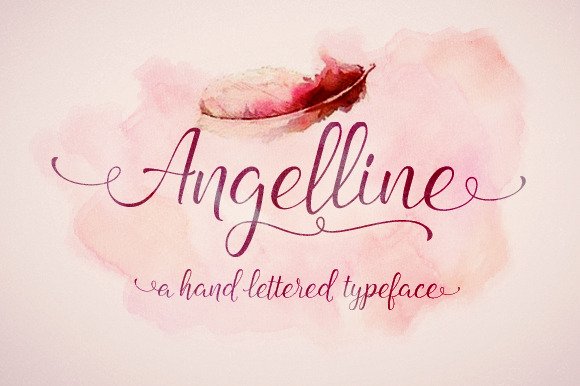
Angelline Script
Angelline Script is handwritten stylish copperplate calligraphy fonts, combines from copperplate to contemporary typeface with a dancing baseline, classic and elegant touch. This font is 100% based on the brush traces, it has 348 glyphs, contextual, ligatures, swsh and alternates in any OpenType Savvy program or manually choose from even more alternate characters from Glyph Palette.